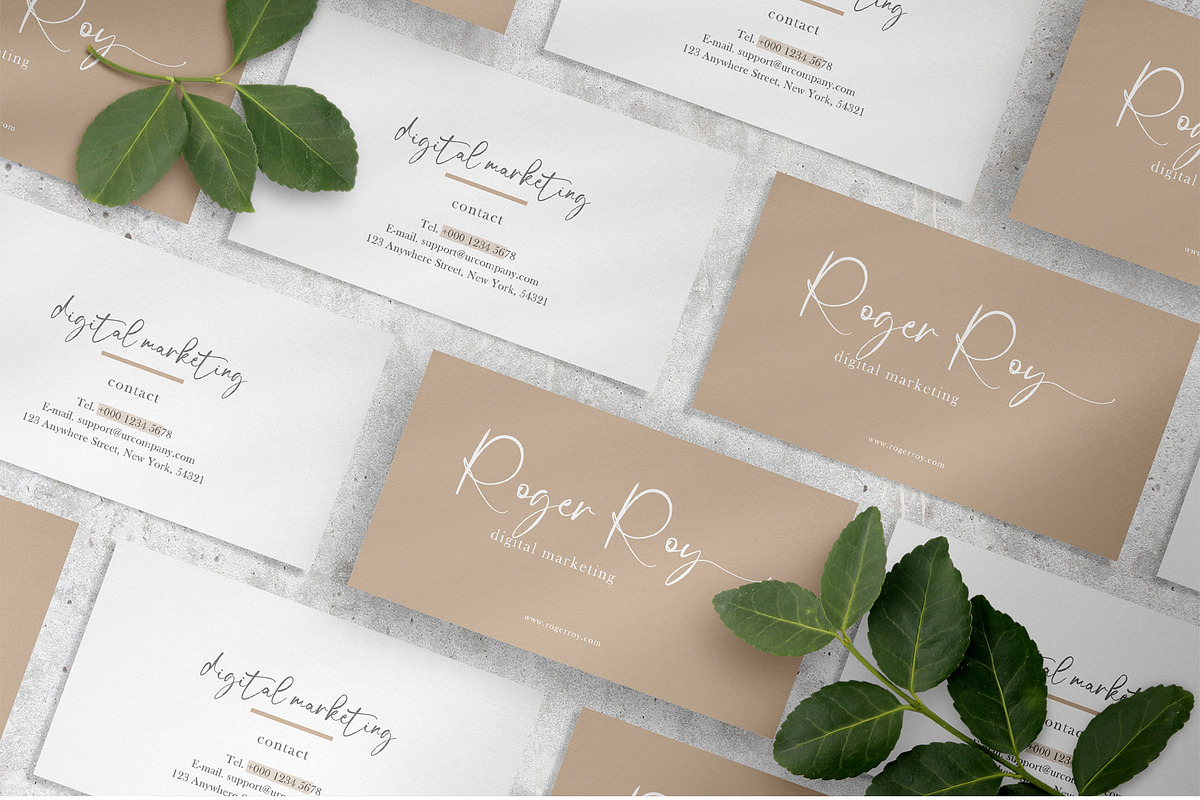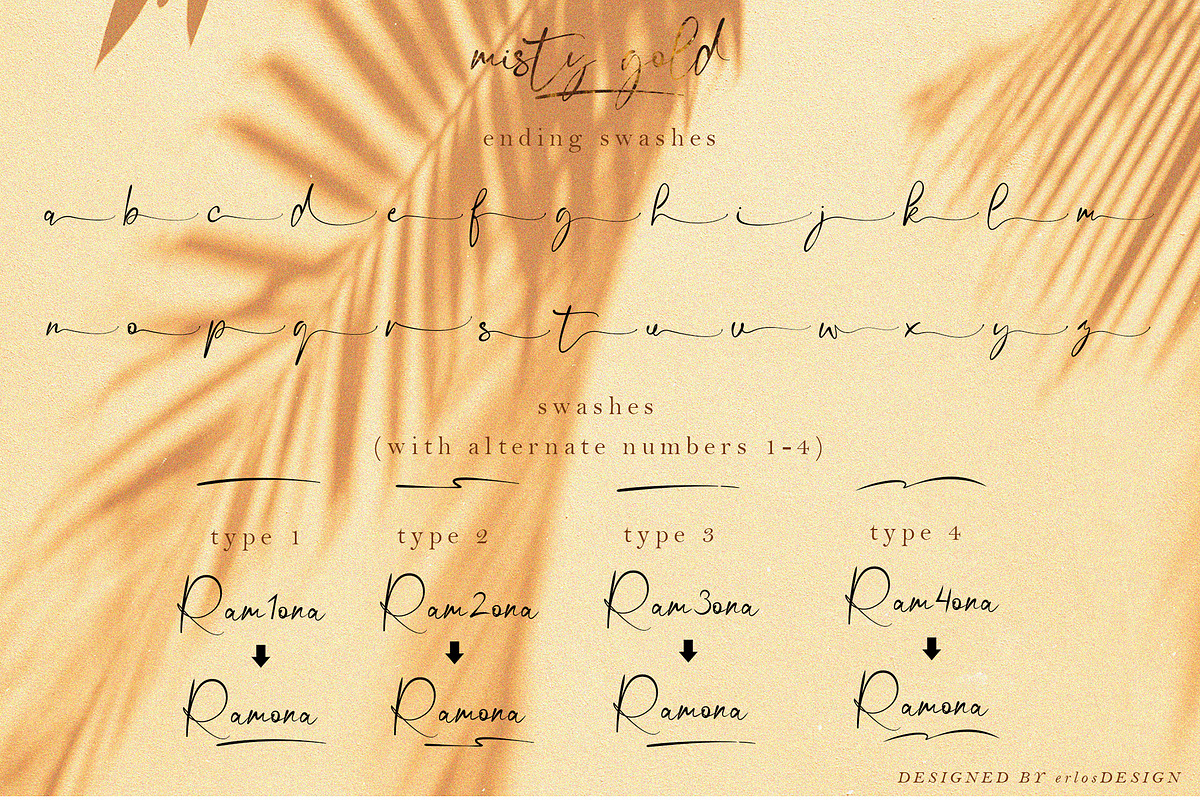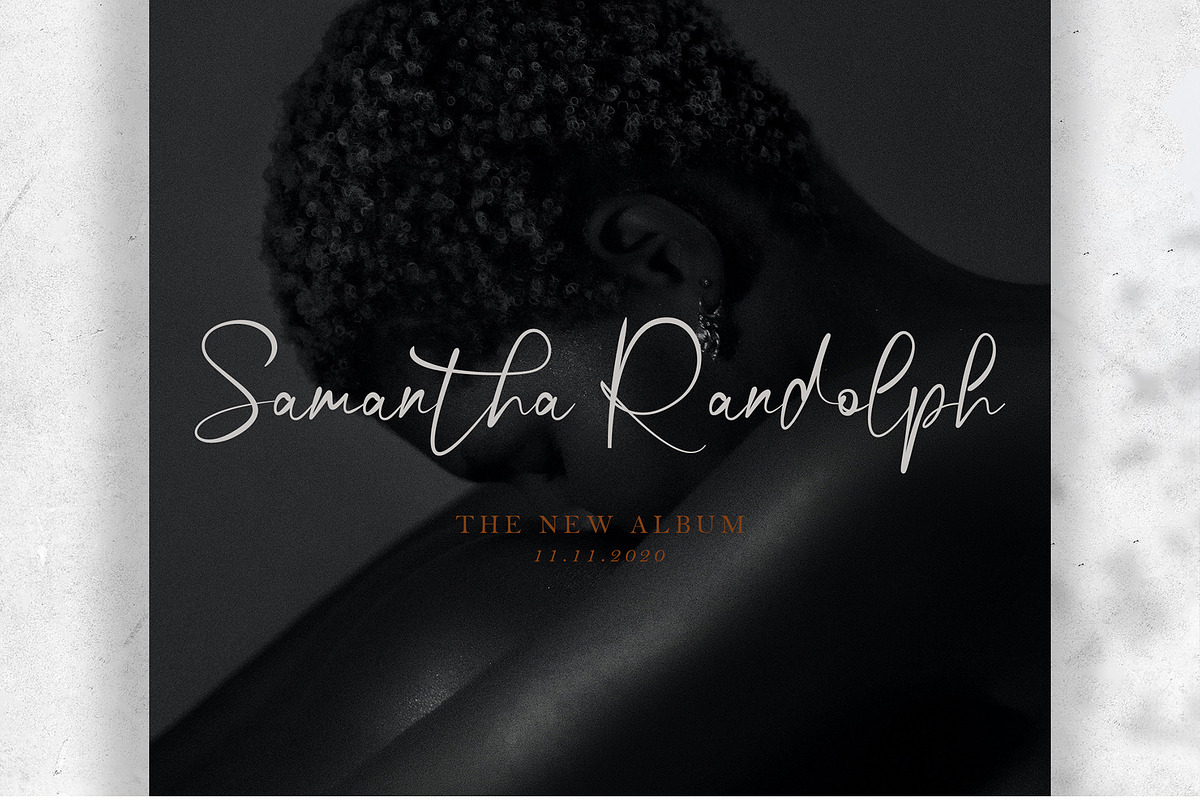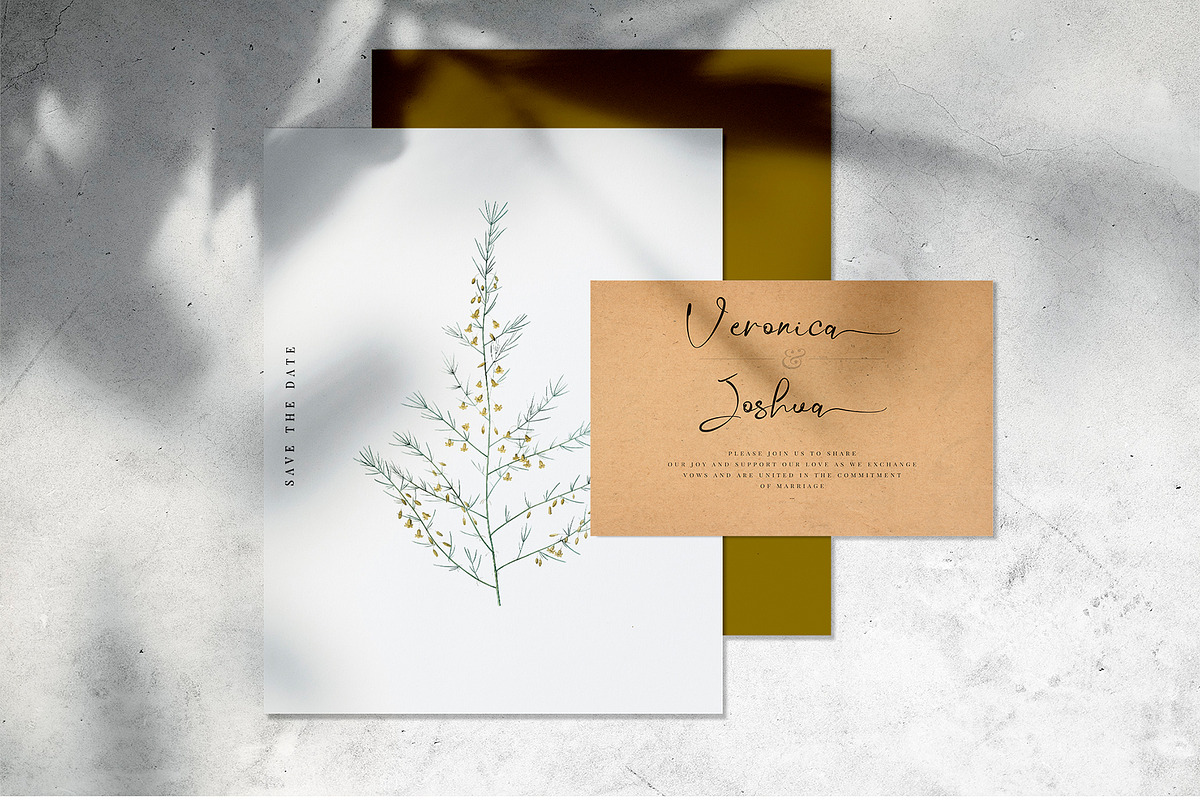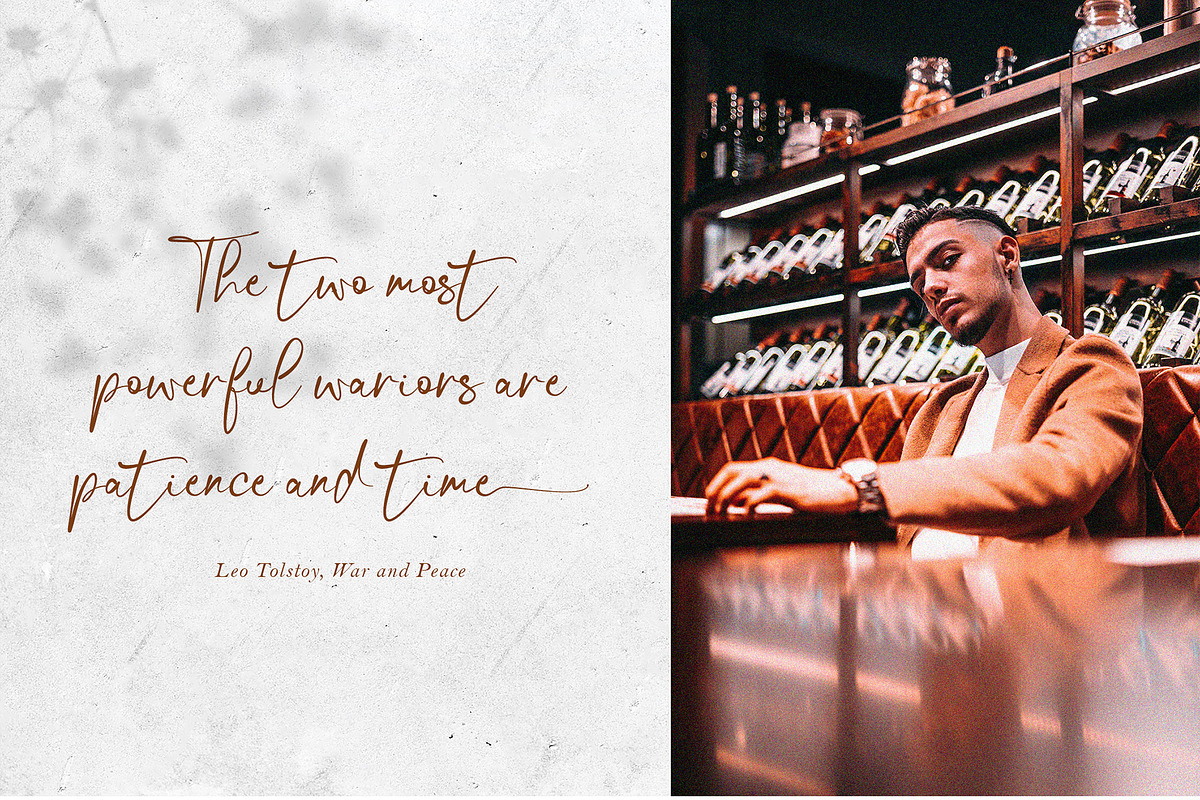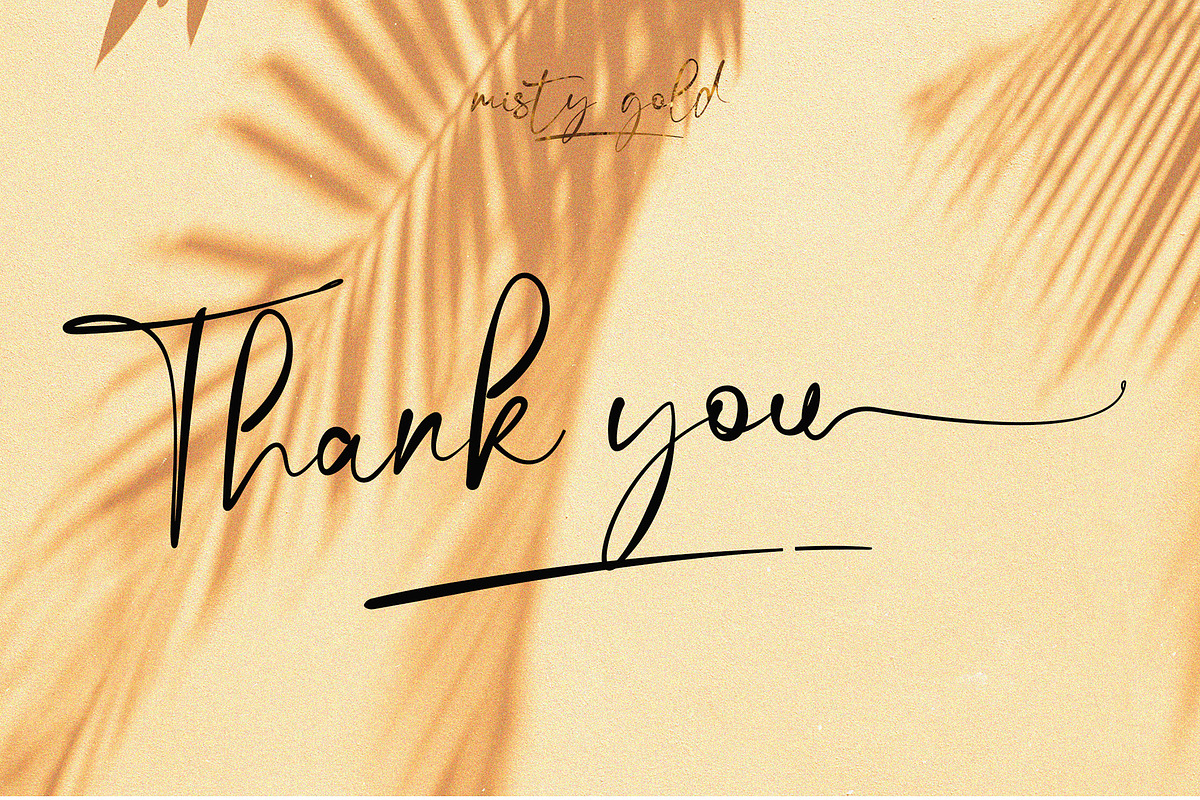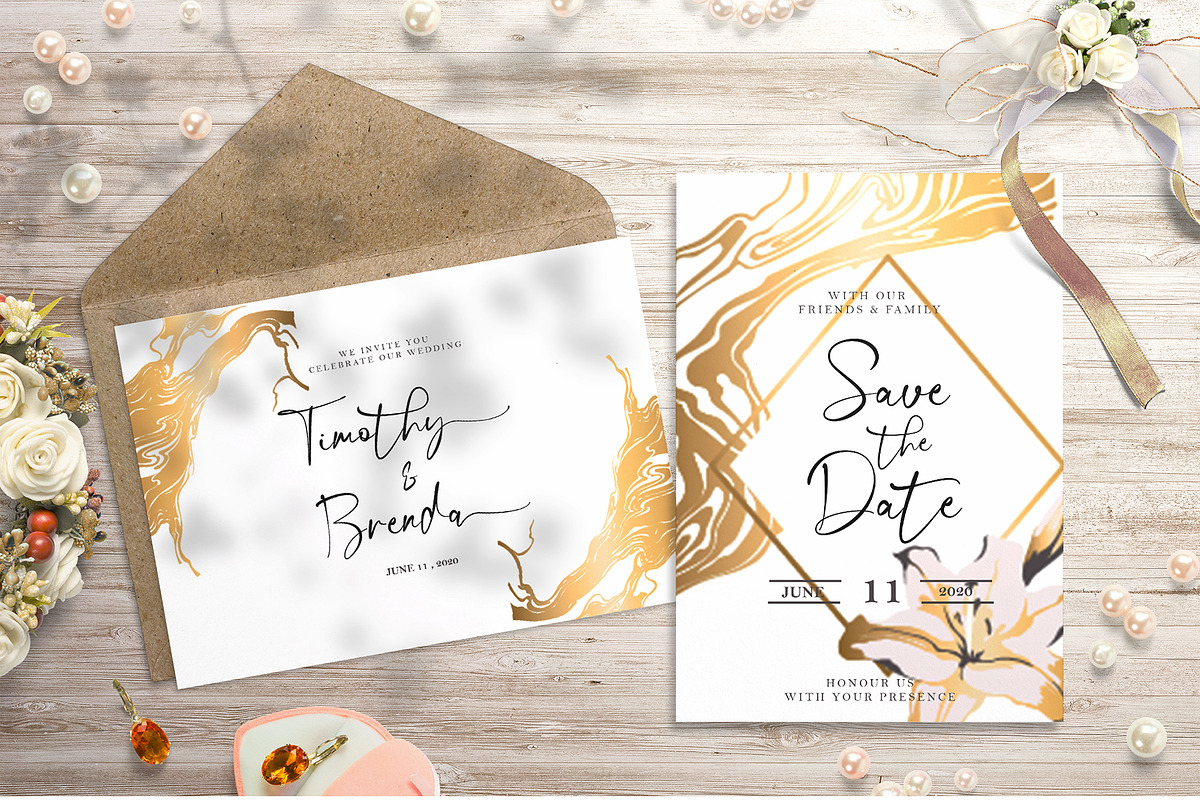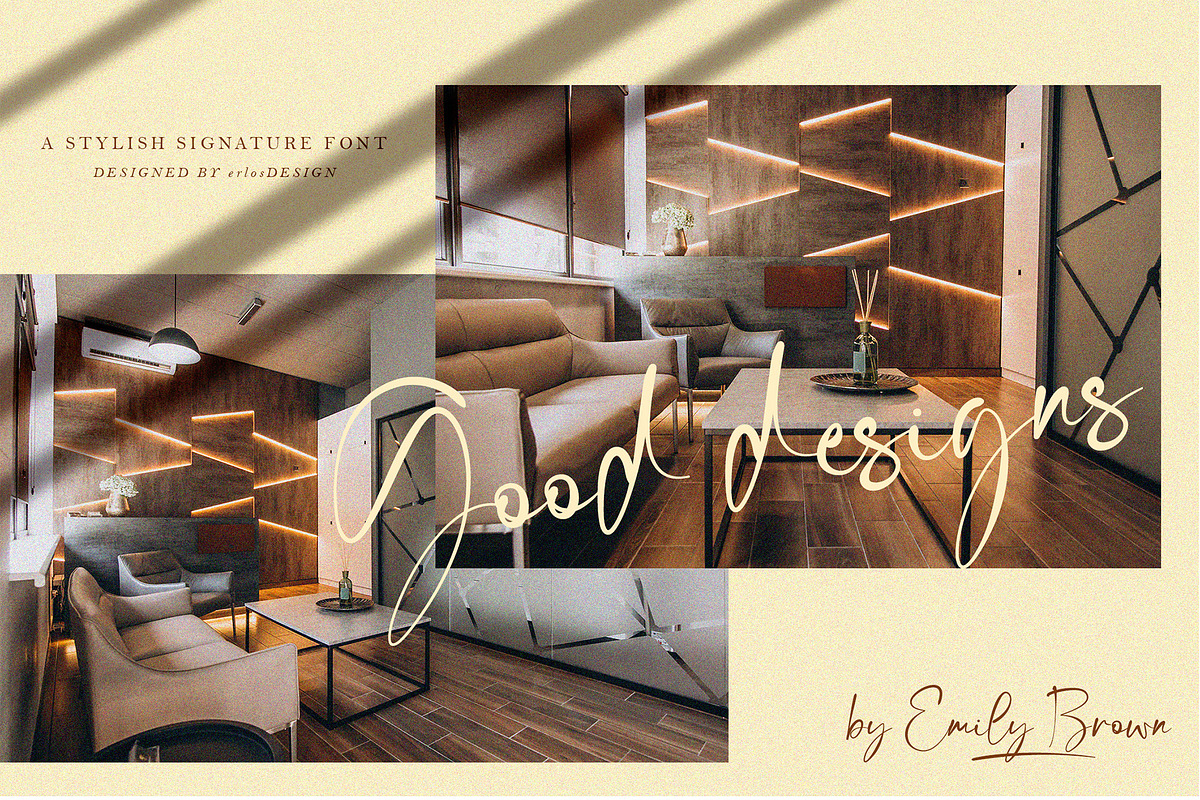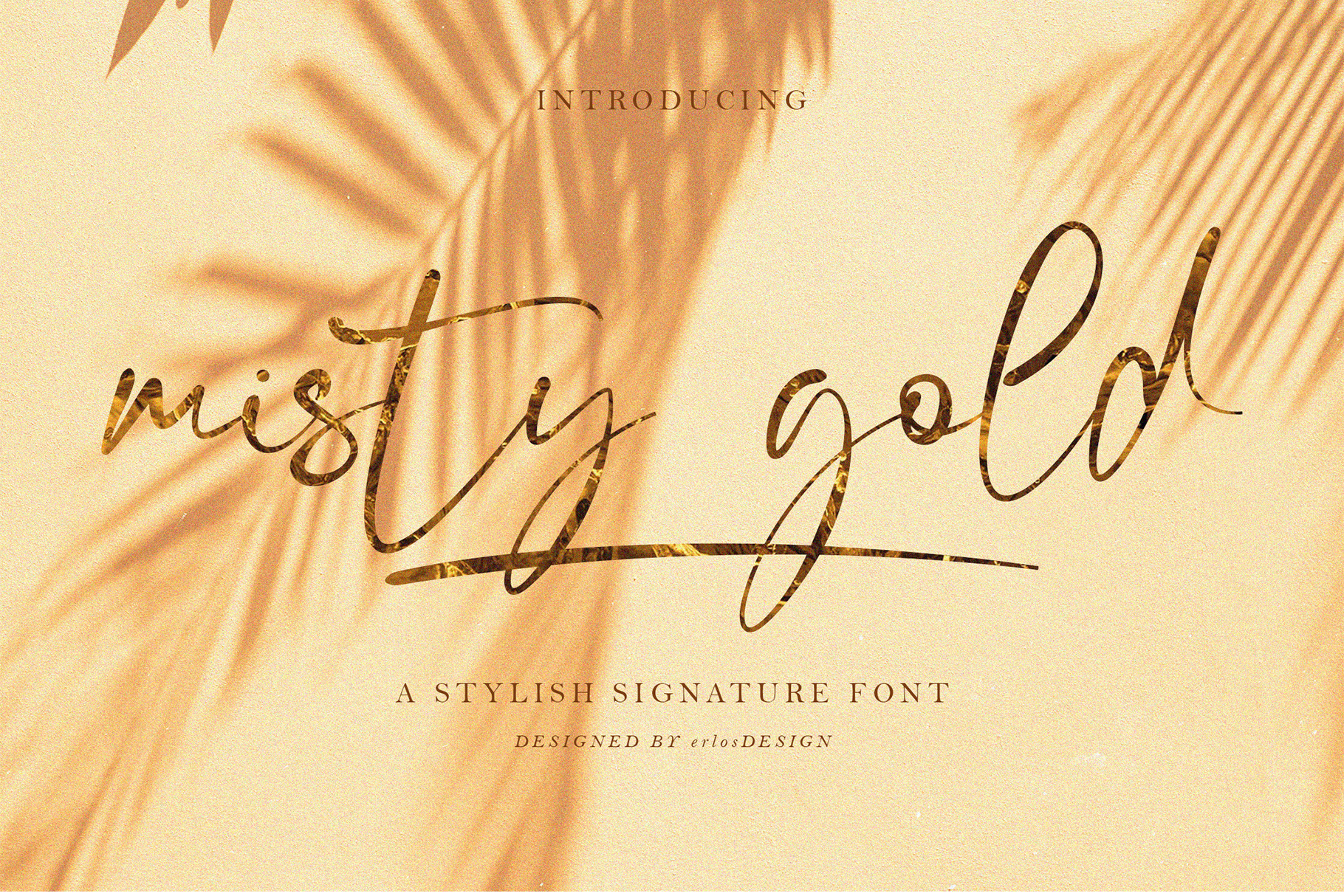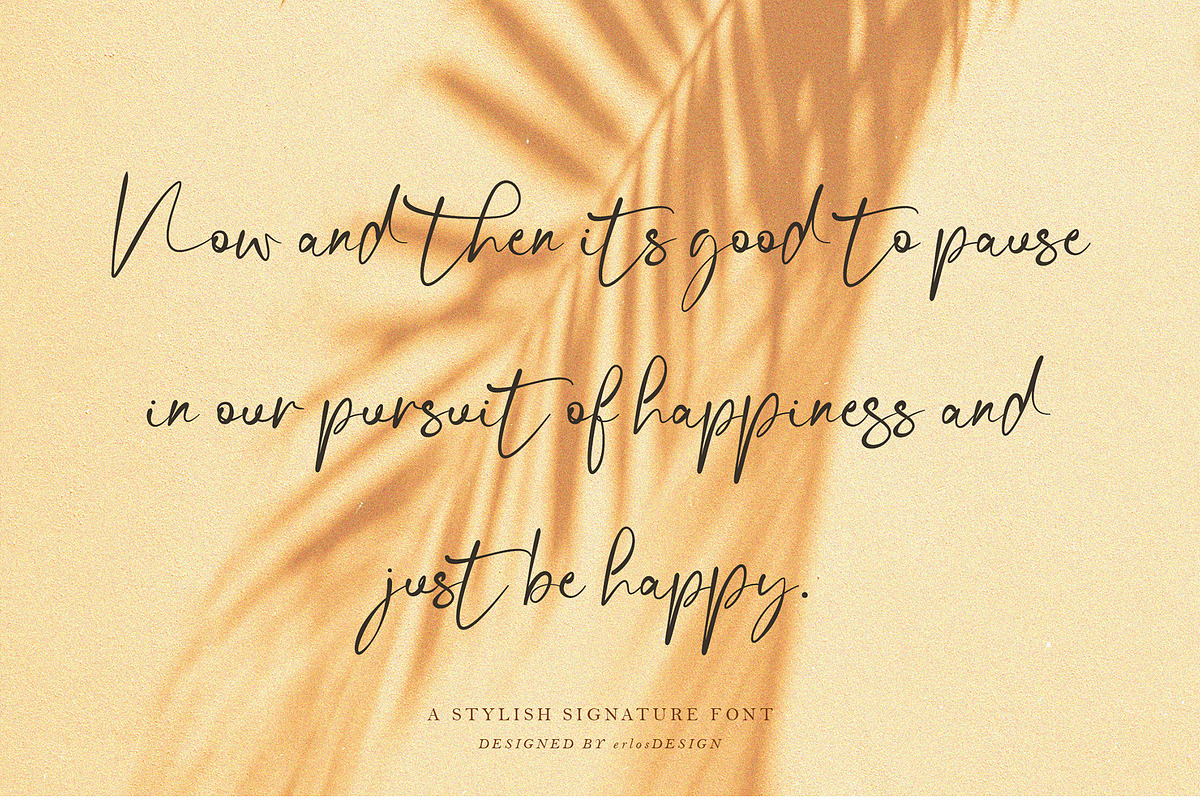
Misty Gold - Signature Fonts
Misty Gold - Handwritten Font by erlosDESIGN
Misty Gold is a sweet, romantic and timeless handwritten font. It looks stunning on wedding invitations, thank you cards, quotes, greeting cards, logos, business cards and every other design which needs a handwritten touch. This font is PUA encoded which means you can access all of the glyphs and swashes with ease! It features a varying baseline, smooth lines, gorgeous glyphs and stunning alternates.